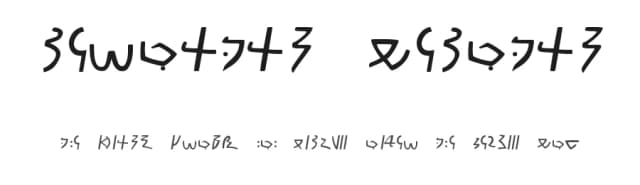
About Meroitic Hieroglyphics Font
Meroitic Hieroglyphics is a dingbat font designed by Reinhold Kainhofer. It includes 218 glyphs, a regular weight, TTF (TrueType) format, and 202 languages. Meroitic Hieroglyphics is free to download; check the license details on this page before commercial use. Dingbat fonts like Meroitic Hieroglyphics work best for icons, ornaments, bullet points, and decorative accents.
Meroitic Hieroglyphics Font is a versatile dingbats font that works for both headings and body text. Pair it with a contrasting sans-serif or serif font to add visual interest and a clear distinction between titles and body copy.
Meroitic Hieroglyphics Font is a dingbats typeface by Reinhold Kainhofer, ideal for logos, invitations, branding, and creative projects.